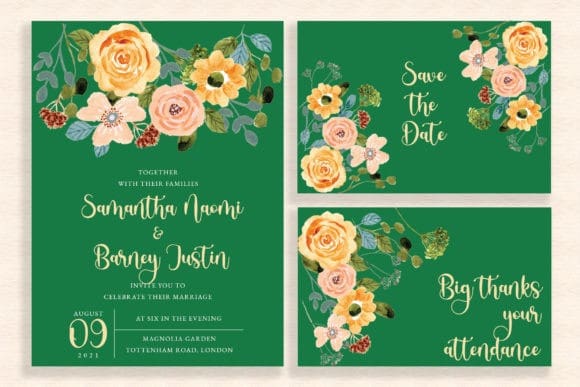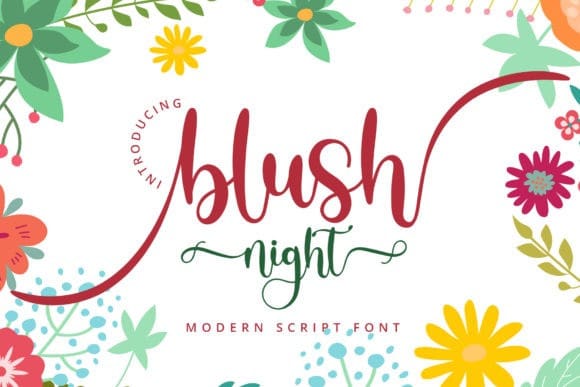
Blush Night Font
Blush Night Font feels incredibly elegant and flowing. It looks stunning on wedding invitations, thank you cards, quotes, greeting cards, logos, business cards and every other design which needs a handwritten touch. It features a varying baseline, smooth lines, gorgeous glyphs and stunning alternates.